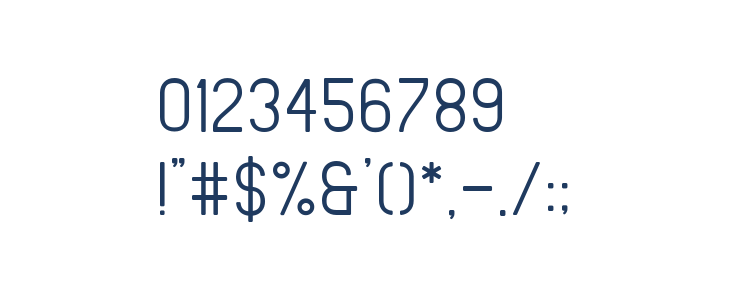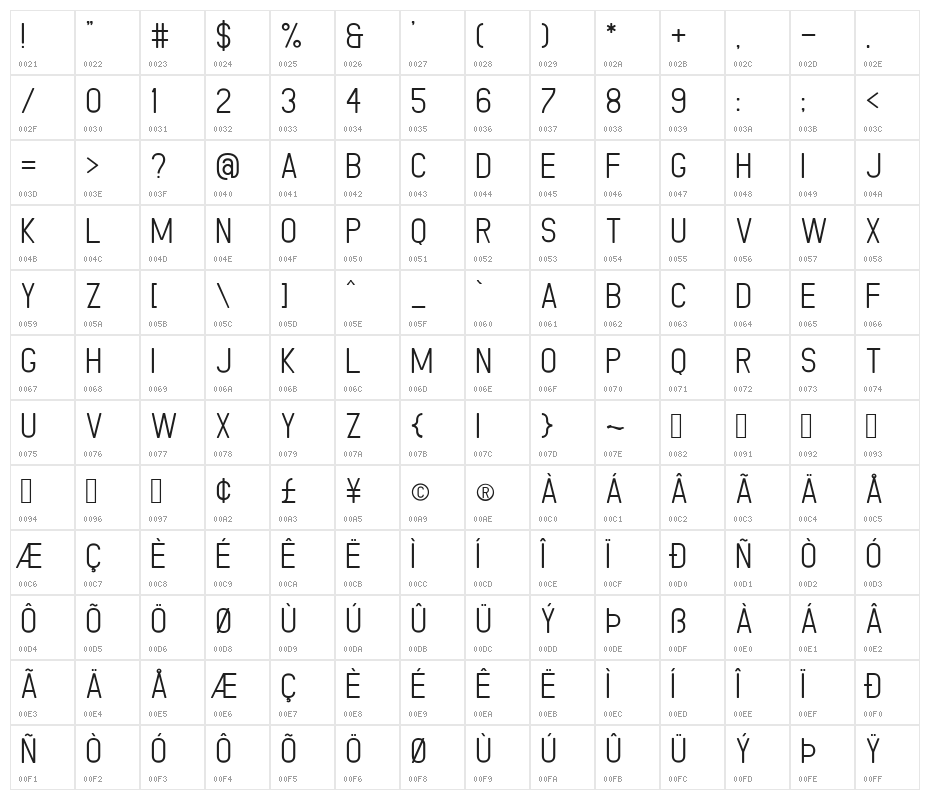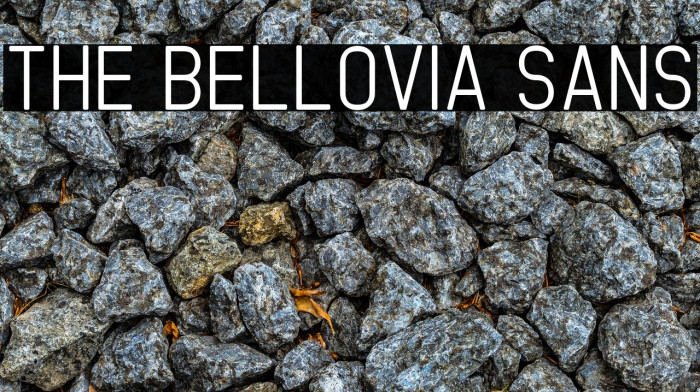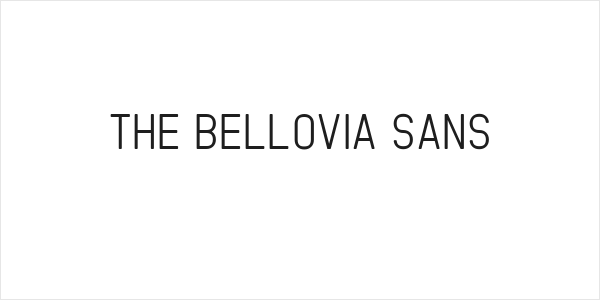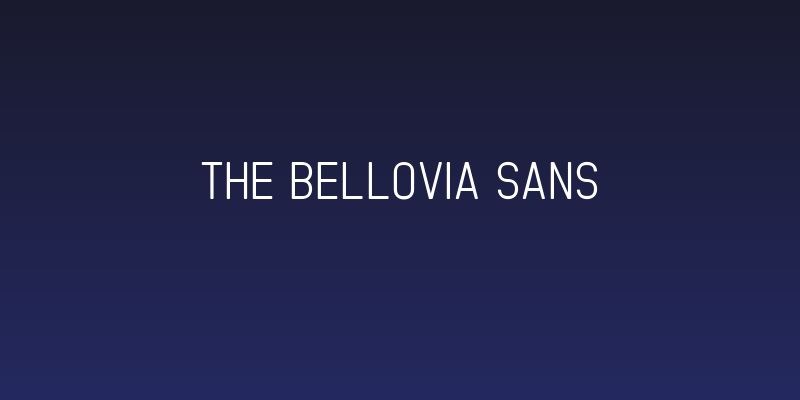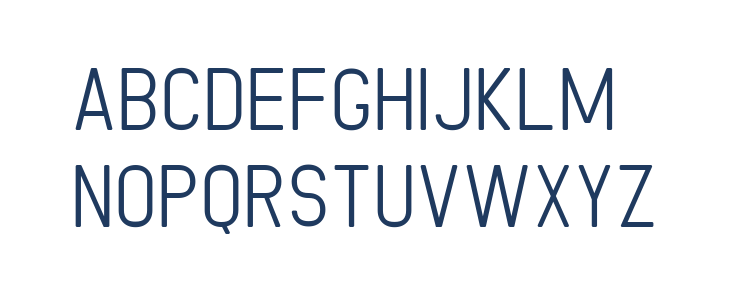
The Bellovia Sans Font
The Bellovia Sans Description
This typeface features a clean and modern sans-serif design, characterized by its geometric shapes and uniform stroke widths. The letters are well-proportioned, with a slightly condensed appearance that enhances readability. The uppercase and lowercase letters maintain a consistent style, offering a harmonious look across different text sizes. The numerals are clear and distinct, making them suitable for both digital and print formats. Special characters are included, providing versatility for various applications. The overall aesthetic is sleek and professional, making it ideal for contemporary design projects.
Proposed ProjectsIdeal for branding, web design, corporate materials, and editorial layouts.